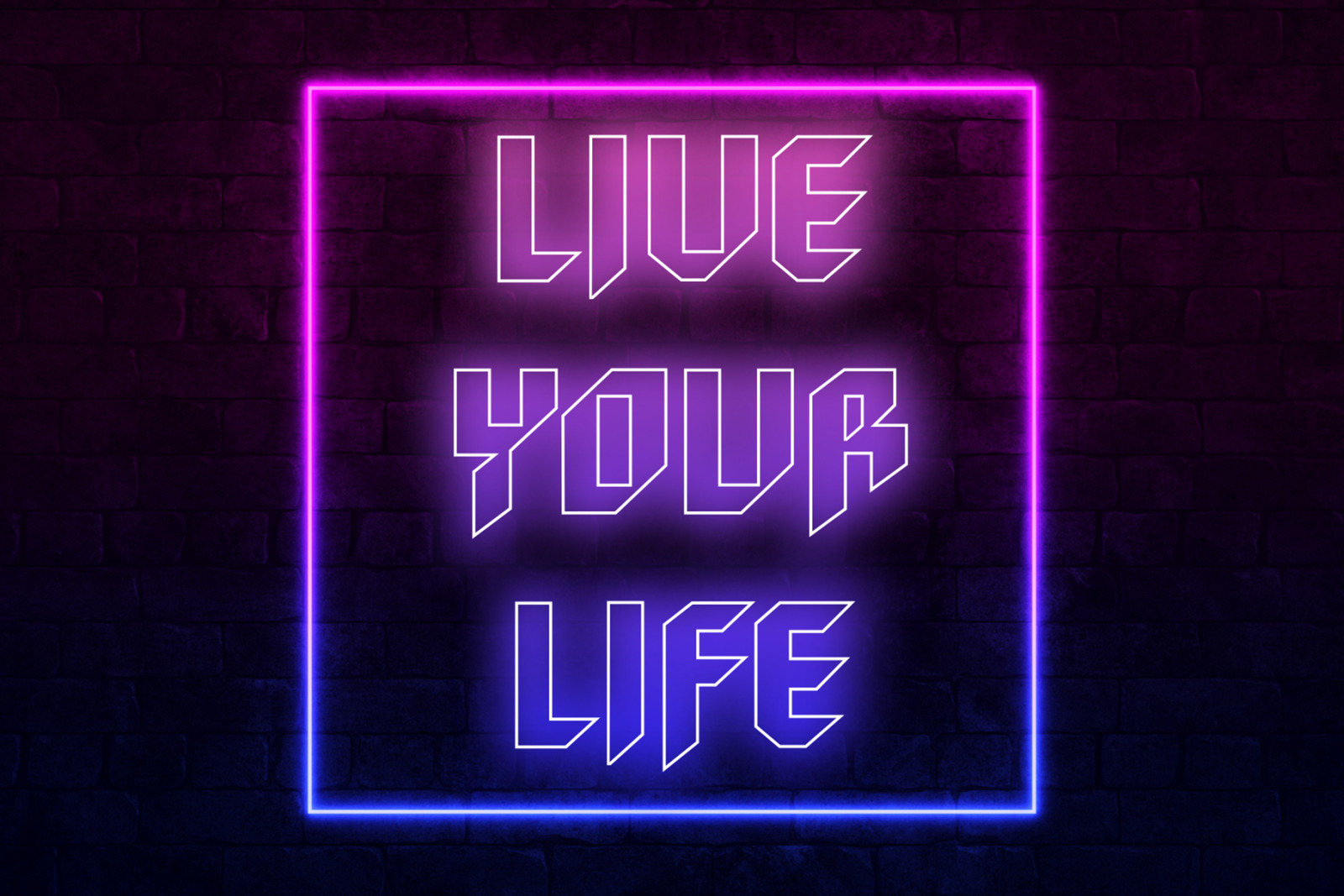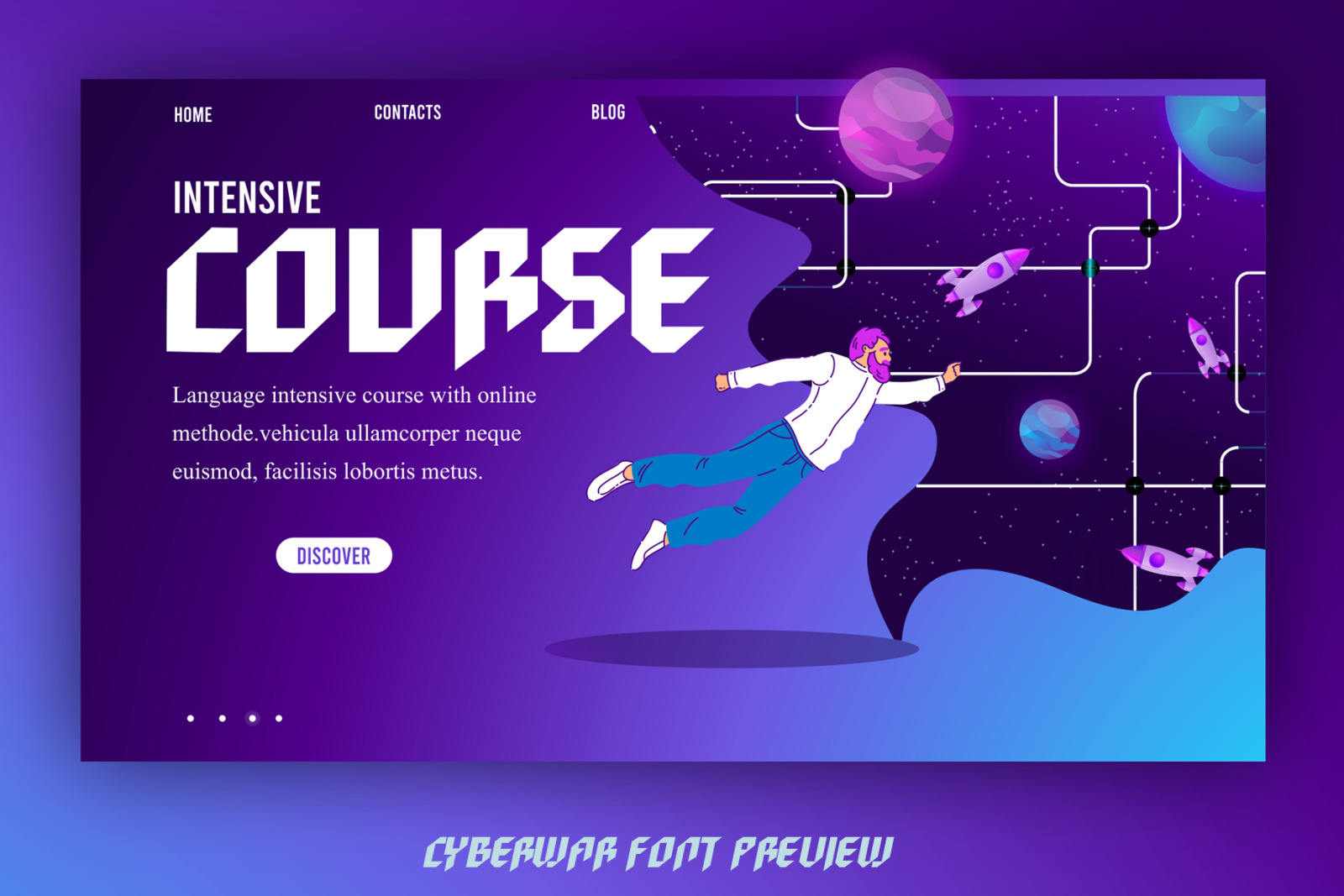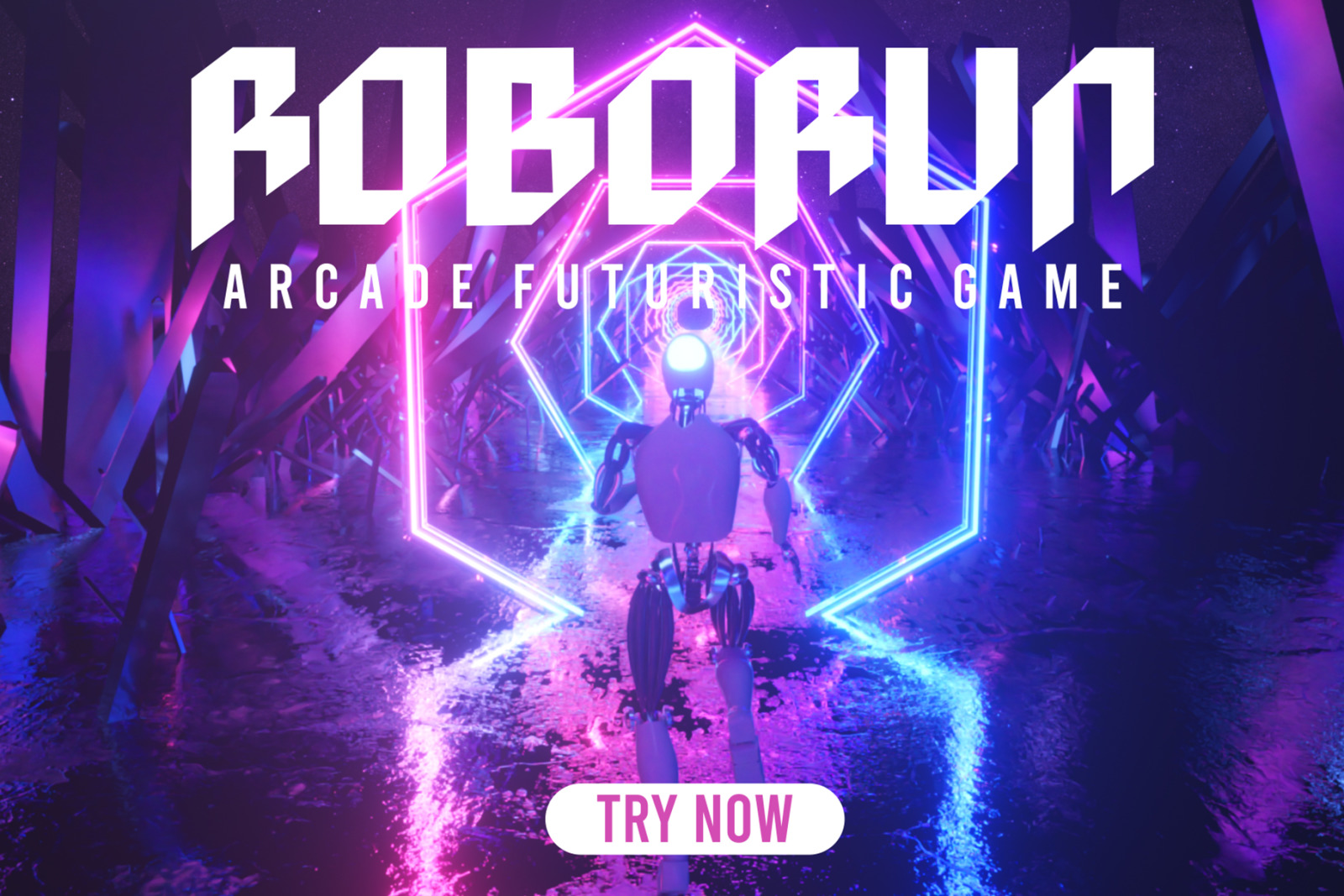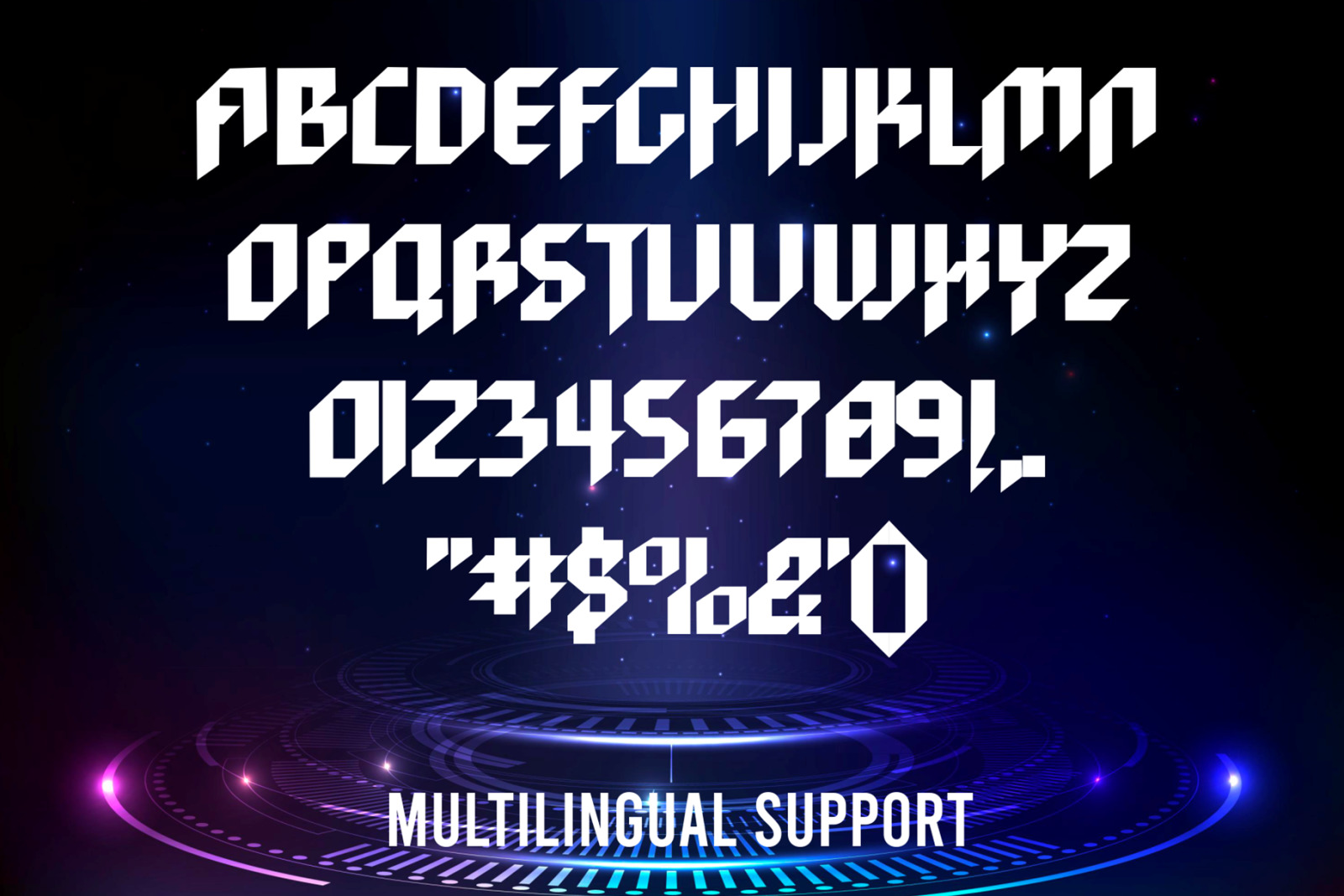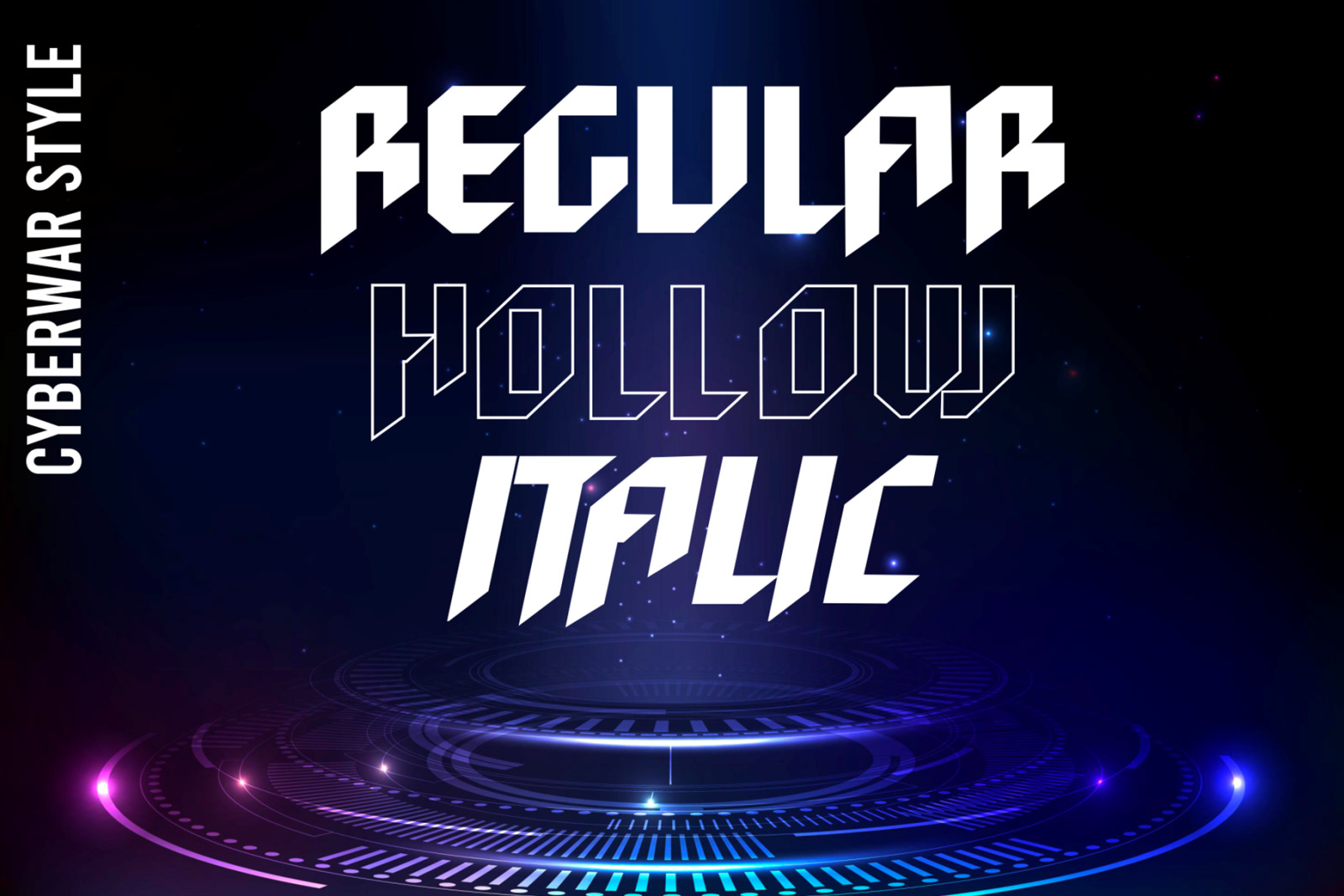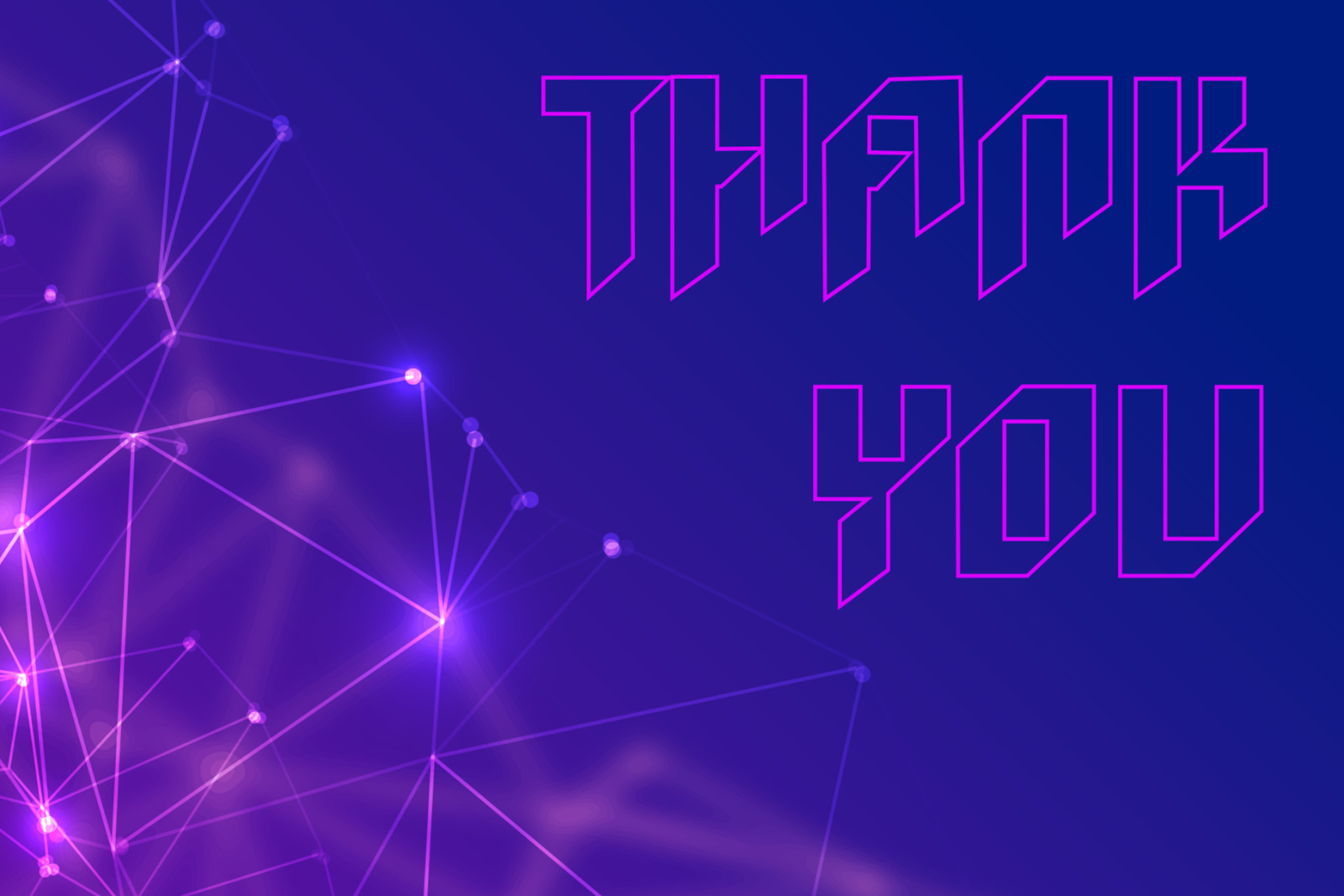
Cyberwar Font
Cyberwar is futuristic font carries uppercase characters with a set of numbers that showcase a futuristic minimal design in addition to galactic alternates. Take a trip through time and use it for movie posters set in space or in the future. Very suitable for sci-fi enthusiasts, create cards and personalized artwork, but don’t let the adventure stop with you. Use Nebula for UX and UI projects and allow the rest of the world to get a glimpse of what the future may hold.